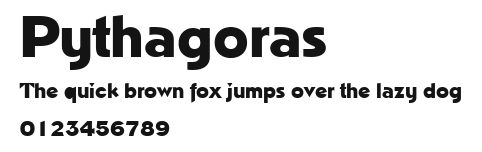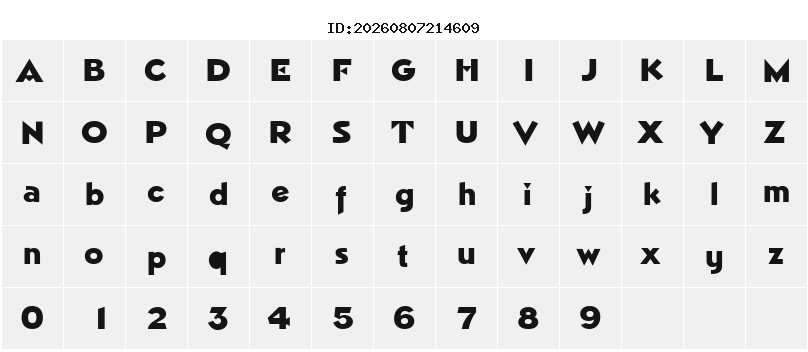
• Font Name: Pythagoras
• Full Font Name: Pythagoras Regular
About Pythagoras.ttf
Pythagoras.ttf is a modern, elegant sans-serif font designed for ultimate readability and visual harmony. Perfect for branding, headlines, web design, and print materials.